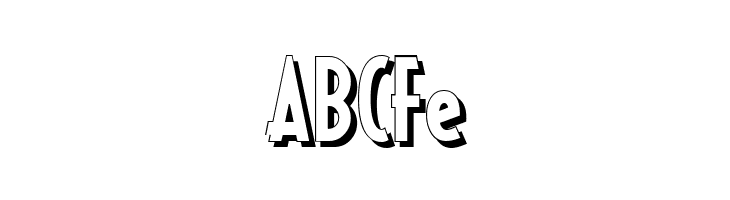
Captain Canaveral Outline Font
- Font: Captain Canaveral Outline
( Fonts by dartcanada.tripod.com - Darren Rigby )
A modern, geometric font with a sleek, condensed design.